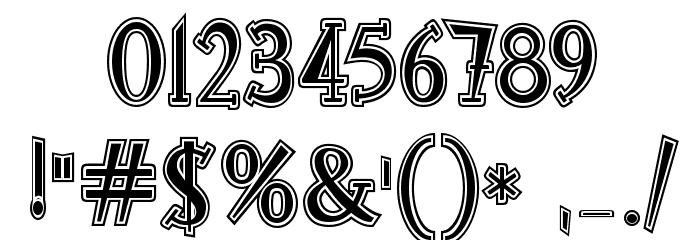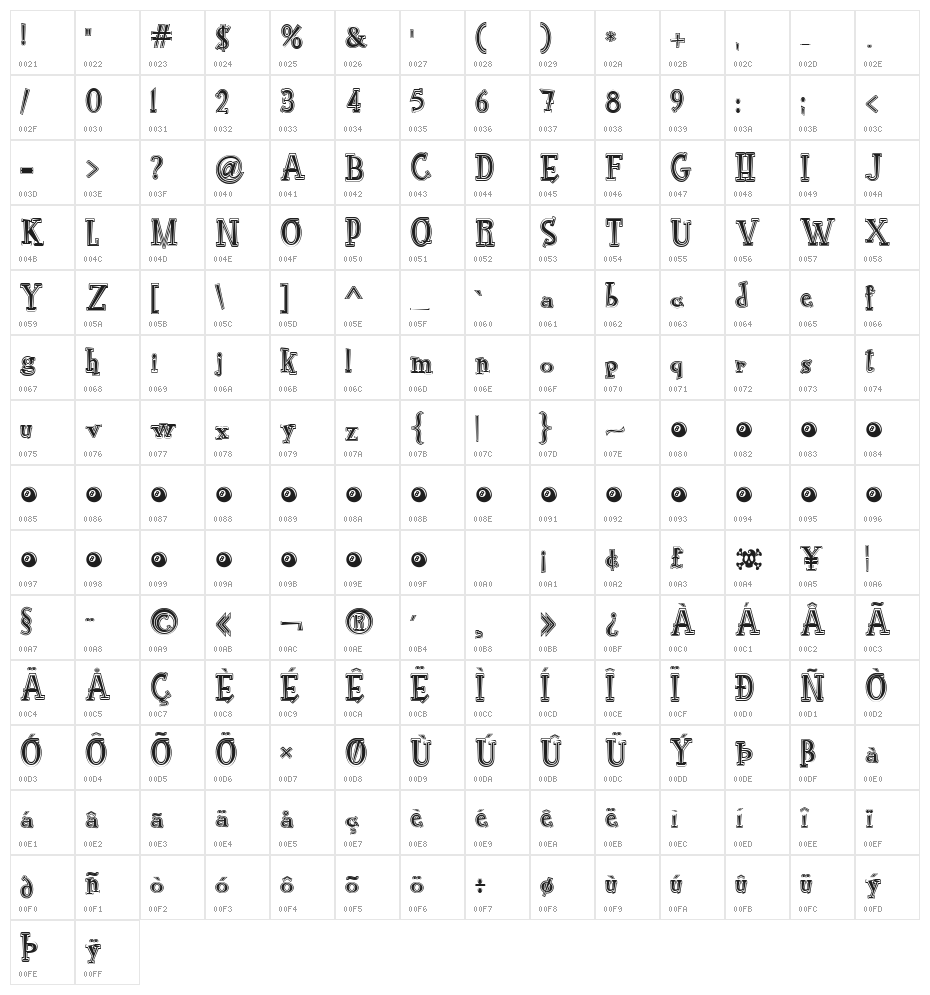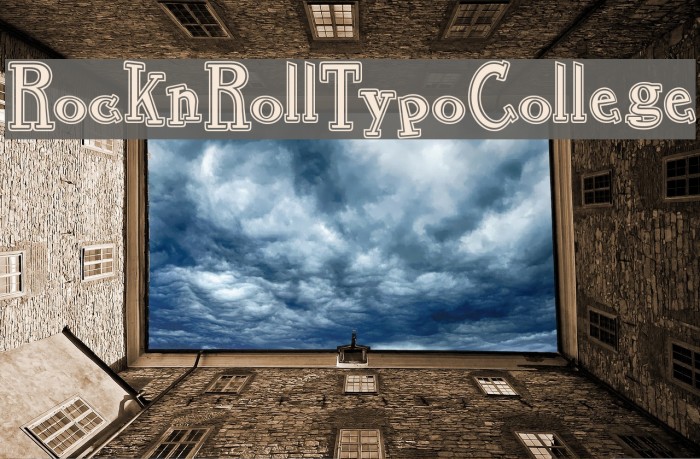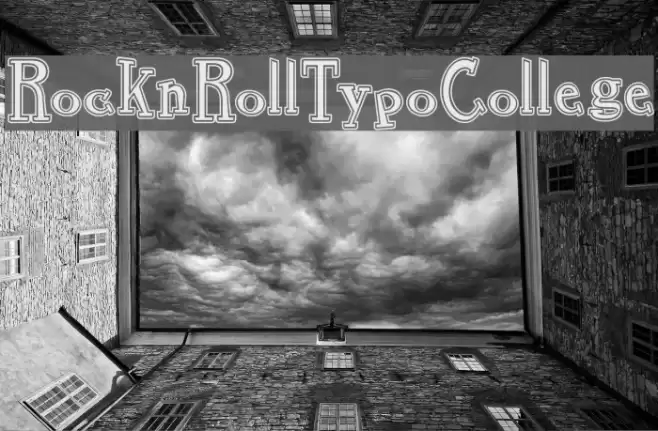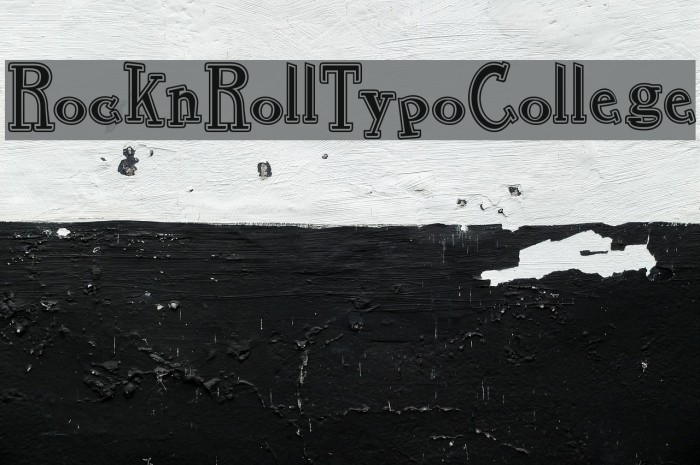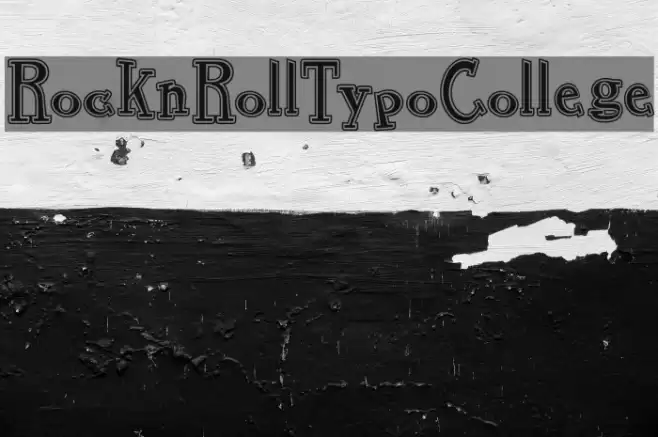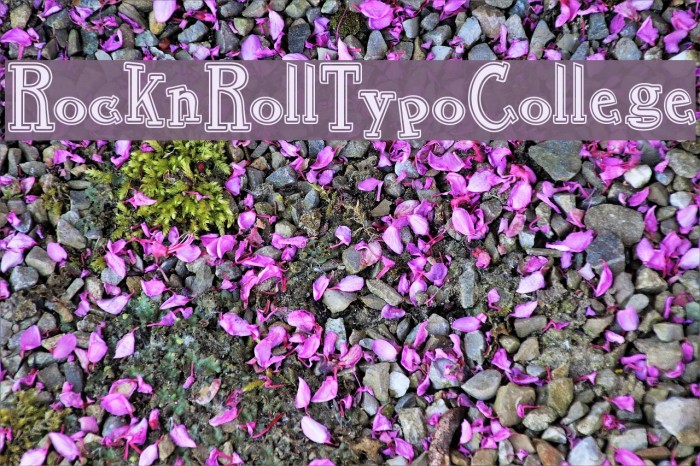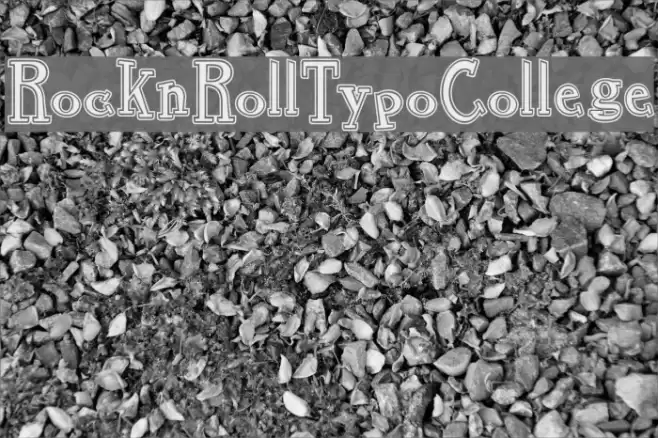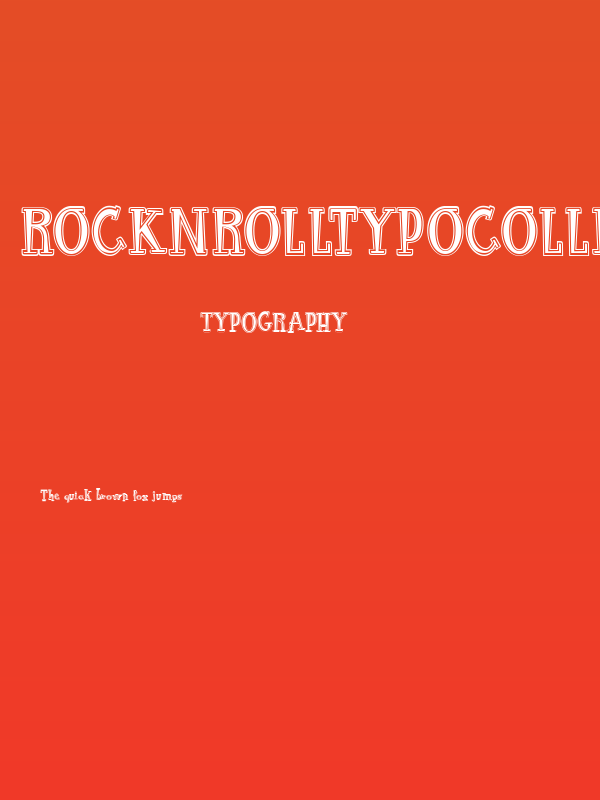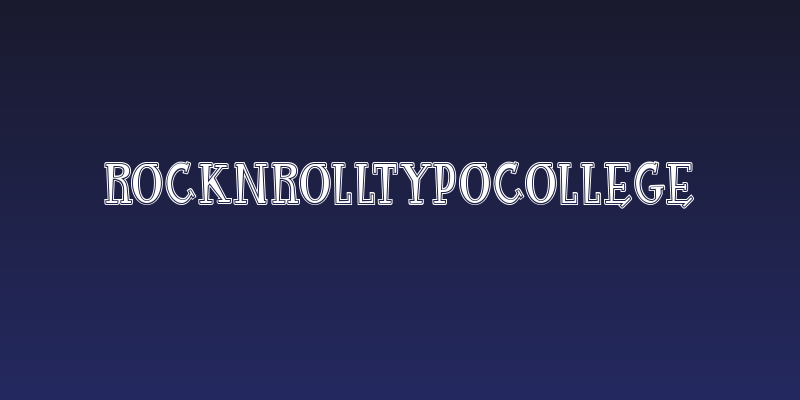
RocknRollTypoCollege Font
RocknRollTypoCollege Description
This font features a bold, outlined style with a playful and energetic vibe. The uppercase and lowercase letters are designed with a consistent thickness and a unique, slightly irregular outline that adds a sense of movement and dynamism. The numbers and special characters follow the same design principles, ensuring a cohesive look across all elements. The font's overall appearance is reminiscent of collegiate or varsity styles, making it ideal for projects that require a youthful and spirited touch. The characters are well-spaced, allowing for readability while maintaining a distinctive visual impact.
| Overall Style | Playful, Collegiate |
| Proposed Projects | Ideal for sports team branding, event posters, youth-oriented merchandise, and school spirit materials. |